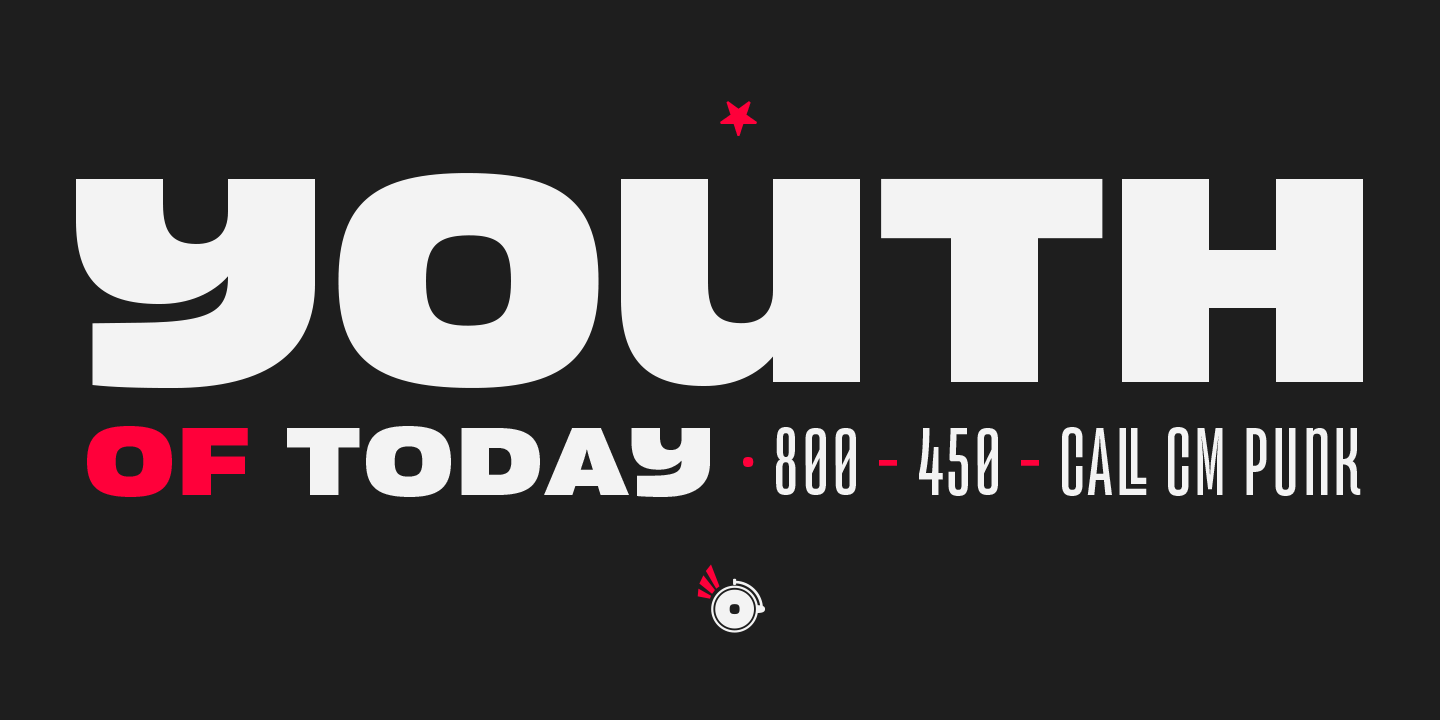
Versus Font is perfect for sports team logos, competitive gaming interfaces, tournament brackets, fight night promotions, esports branding, athletic wear designs, championship banners, rivalry marketing campaigns, battle-themed graphics, and confrontational advertising materials.
Versus Font is exciting because it embodies the raw intensity and competitive spirit of head-to-head battles through its aggressive, angular letterforms that channel the adrenaline of competition while commanding attention with uncompromising boldness and fierce determination.
Versus Font family includes Regular, Bold, Light, Condensed, Italic, Extended, Impact, and Stencil variations, offering designers a complete arsenal of confrontational typography tools to create powerful visual statements that dominate any competitive landscape.
Versus Font represents the ultimate expression of competitive energy and confrontational design, making it an indispensable tool for brands and organizations operating in high-stakes environments. This powerful typeface brings intensity and authority to any design project, whether you're developing sports team identities, creating gaming tournament materials, or designing promotional campaigns for competitive events. The sharp, decisive character structure of Versus Font Free Download ensures maximum impact while maintaining excellent readability across all platforms and applications.
Sports industry professionals consistently choose Versus Font for team branding, merchandise design, and promotional campaigns because of its ability to instantly communicate strength, determination, and competitive excellence. The font's aggressive appearance makes it particularly effective for targeting athletes and sports enthusiasts who thrive on rivalry and championship aspirations.
Versus Font dominates digital gaming environments where competition and performance are paramount. Esports organizations and gaming companies rely on this font to create interfaces that enhance the competitive experience and communicate the serious, high-stakes nature of professional gaming. The font's bold presence naturally conveys authority and determination.
The fitness and martial arts industries have embraced Versus Font for gym branding, combat sports promotions, and personal training materials. Its confrontational visual impact helps businesses create motivational environments that inspire clients to push their limits and achieve peak performance, while its association with victory and competition makes it ideal for brands focused on transformation and achievement.